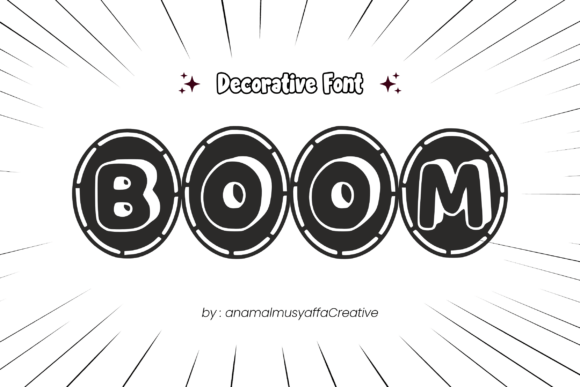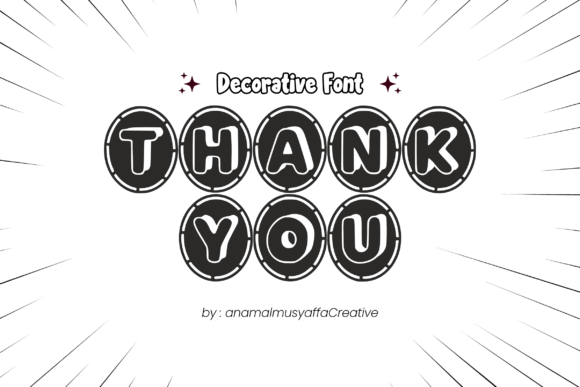
The Joy of Comiccartoon Regular Font: Bringing a Playful Twist to Your Designs
Who hasn’t had that moment of pure creative bliss when a font suddenly sparks an idea, and everything falls into place? For designers, that ‘aha’ moment is often a result of combining the perfect typography with a dash of personality. For those looking to inject some whimsy into their projects, look no further than the Comiccartoon Regular Font – a true game-changer in the world of avant-garde fonts.
With its unique blend of adorable characters and ornamental flair, the Comiccartoon Regular Font is a versatile tool that can breathe life into everything from apparel designs to animations and beyond. As a designer, you’ll appreciate its ease of use and distinctive style, which can elevate your projects from ordinary to extraordinary.
Comiccartoon Regular Font Key Features
- Font Family: Comiccartoon Regular, a unique and playful font designed for comic books, cartoons, and graphic novels.
- Unique Characteristics: Features a hand-drawn, comic book-inspired style with bold lines, exaggerated shapes, and a distressed texture, adding a touch of whimsy and nostalgia to any design.
Comiccartoon Regular Font Review
Overall, I think Comiccartoon Regular is a solid choice for a comic book or cartoon-inspired design project. Here are some of its strengths:
- ✨ Highly legible: This font is designed to be easy to read, even in smaller sizes.
- ✨ Playful feel: The font’s unique character shapes and rounded edges give it a lighthearted, cartoonish feel that’s perfect for comic books, children’s books, or other projects that need a playful vibe.
- ✨ Customizable: Comiccartoon Regular offers a range of OpenType features, allowing you to customize the font’s appearance and behavior.
That being said, there are a few limitations to consider:
- ⚠️ Limited language support: Comiccartoon Regular is primarily designed for Latin-based languages, so it may not be suitable for projects that require support for non-Latin scripts.
- ⚠️ Limited font weight options: While the font includes a range of OpenType features, it’s only available in a single weight (Regular), which may limit its versatility in certain design projects.
Overall, I think Comiccartoon Regular is a great choice for projects that need a playful, comic book-inspired font. While it may have some limitations, its strengths make it a solid option for designers looking for a unique and engaging font.
Tips for Getting the Most Out of Comiccartoon Regular Font
Use Comiccartoon Regular Font for creating playful, casual text effects.
Combine it with bold or italic fonts for added emphasis.
Experiment with different font sizes and colors to achieve the desired look.
Comiccartoon Regular Font is suitable for:
Children’s books and educational materials.
Comic strips and graphic novels.
Advertising and marketing materials with a playful tone.
Alternatives to Comiccartoon Regular Font
1. Comic Sans MS
Comic Sans MS is a popular alternative to Comiccartoon Regular Font. It is a sans-serif font designed by Vincent Connare in 1994. It is often used for informal and playful purposes, such as in children’s books, websites, and advertisements.
Comparison: Comic Sans MS is more informal and casual than Comiccartoon Regular Font, but still conveys a sense of fun and playfulness.
Great Vibes is a script font designed by Handmade Font in 2011. It is often used for titles, headings, and quotes, and is particularly effective for creating a sense of nostalgia and romance.